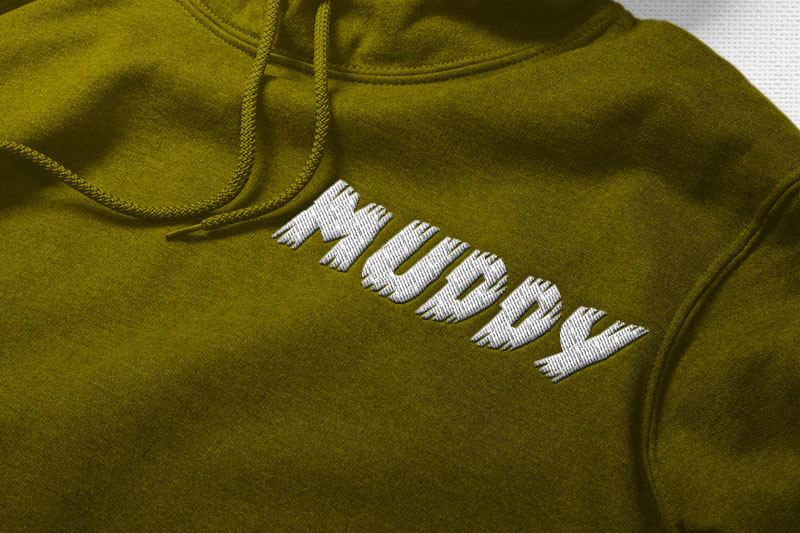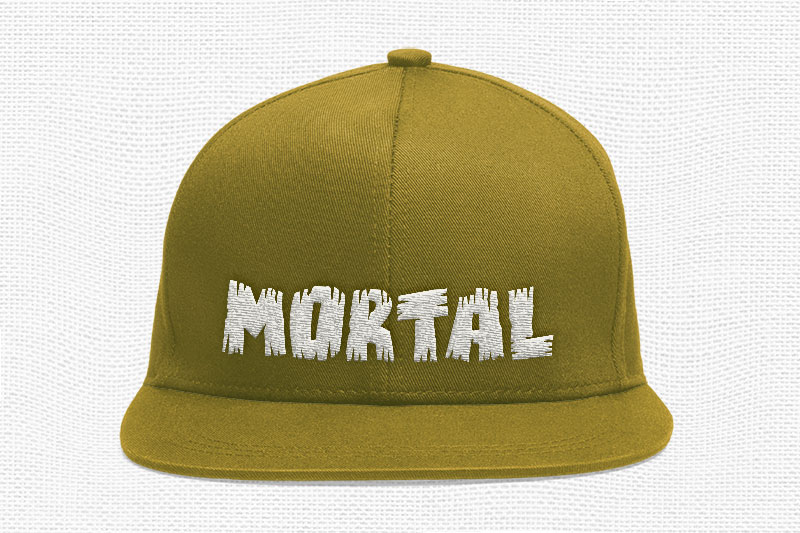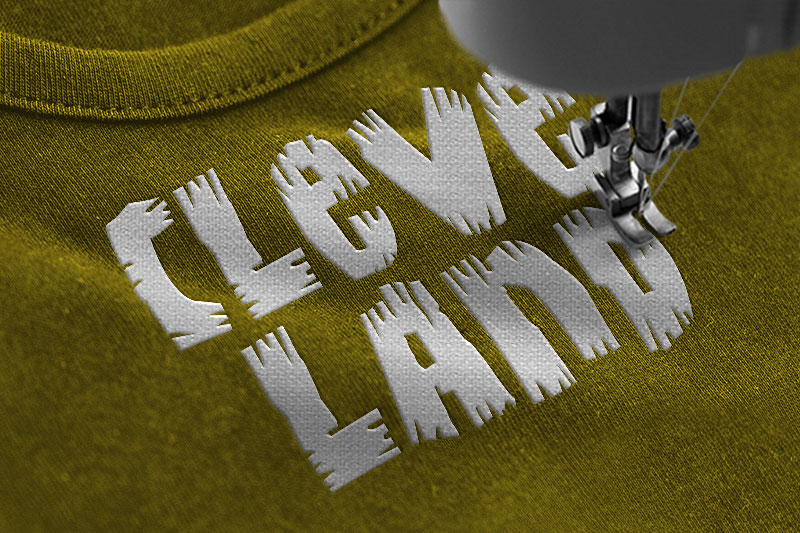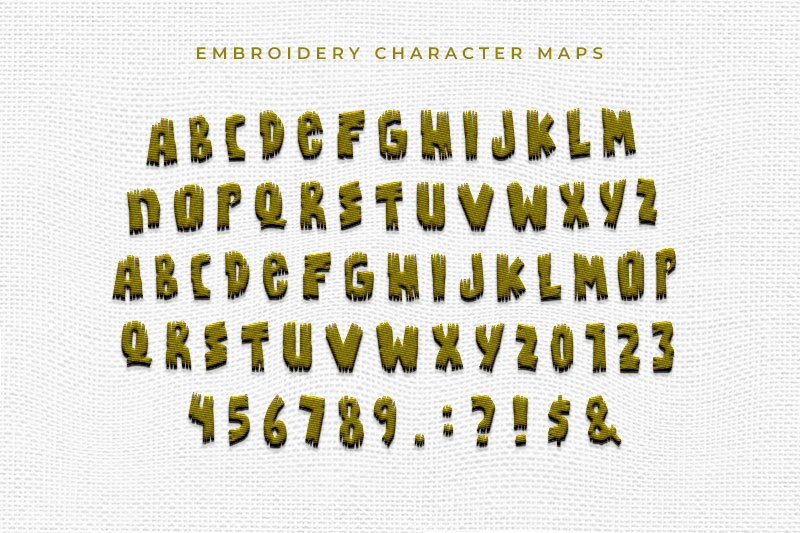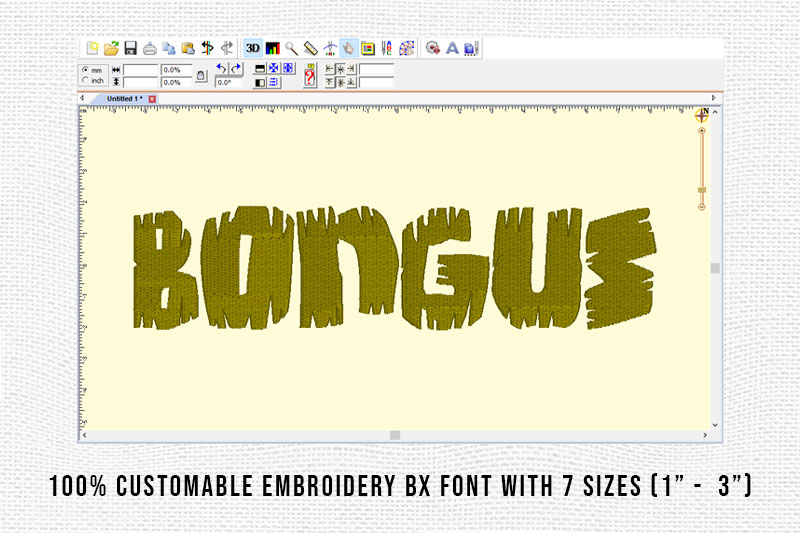
Part of our embroidery font collection, the Bongus Embroidery Font is a modern font with a simple, easy-to-read appearance. A fun typeface that anyone who sees it can easily fall in love with. Unique font, easy to understand, and classified as legible fonts.
Bongus Embroidery Font can be used as a digital font and embroidery font. This font can border t-shirts, hats, shoes, and others. These reasons must be complemented by colors and ornaments that support it.
The digital application of this font is in product advertisements, animated cartoon videos, children's films, and others. It can give an exciting and fun impression to video shows. This is to attract interest in buying products being marketed and watching films that have been shown.